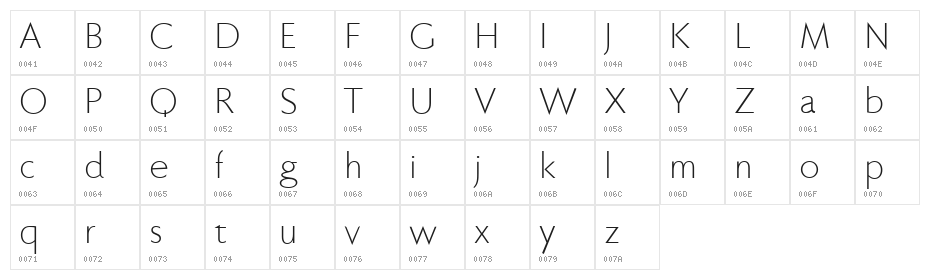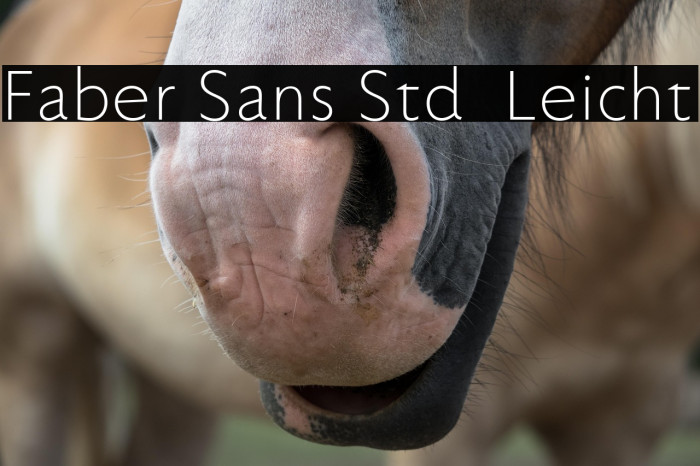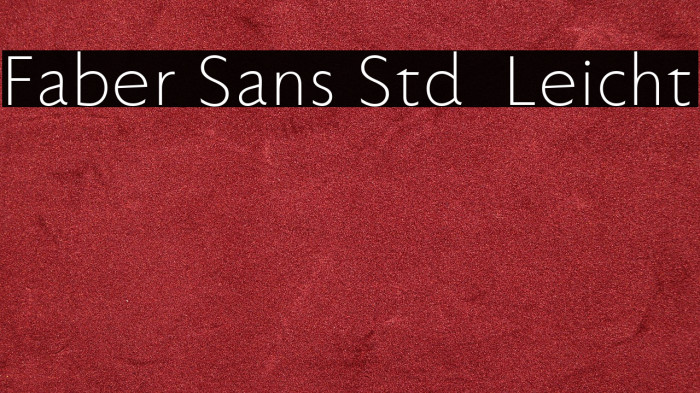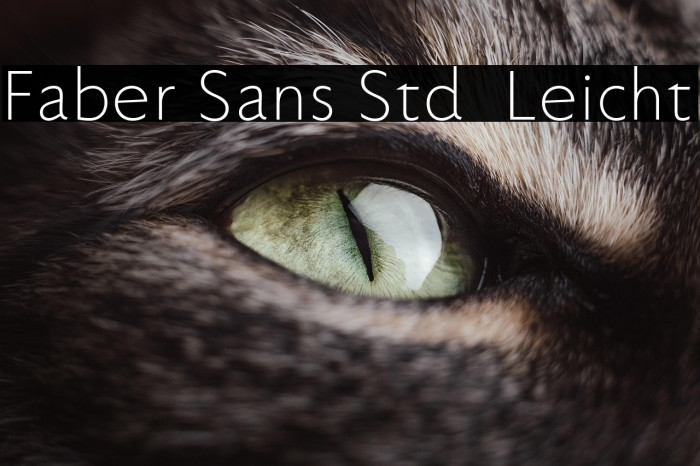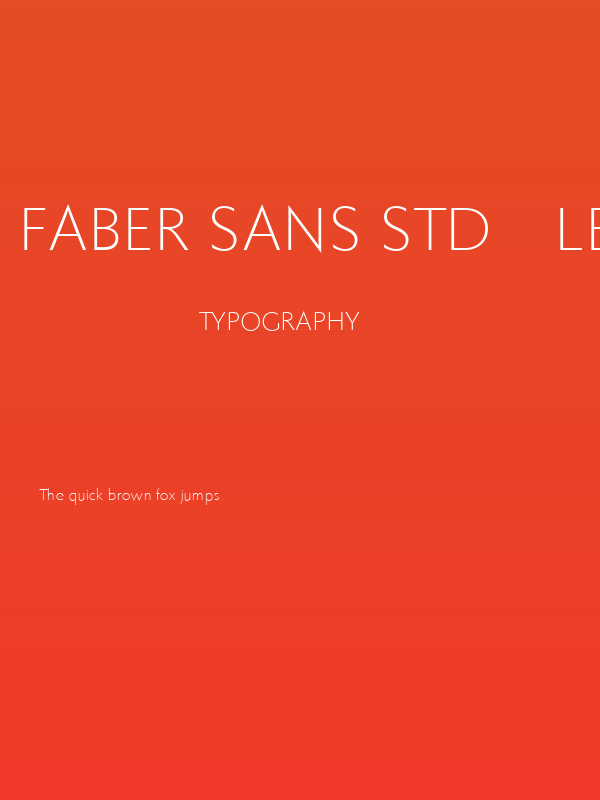
Faber Sans Std 45 Leicht Font
Faber Sans Std 45 Leicht Description
This typeface presents a clean and modern aesthetic with its sans-serif design. The characters are well-proportioned, featuring a uniform stroke width that contributes to its legibility. The uppercase letters are slightly taller than the lowercase, providing a balanced visual hierarchy. The rounded edges of certain letters, such as 'a' and 'e', add a subtle softness to the overall appearance. The spacing between characters is consistent, ensuring readability across various text sizes. This font's simplicity and elegance make it versatile for numerous applications.
| Proposed Projects | Ideal for branding, corporate materials, digital interfaces, and editorial design. |